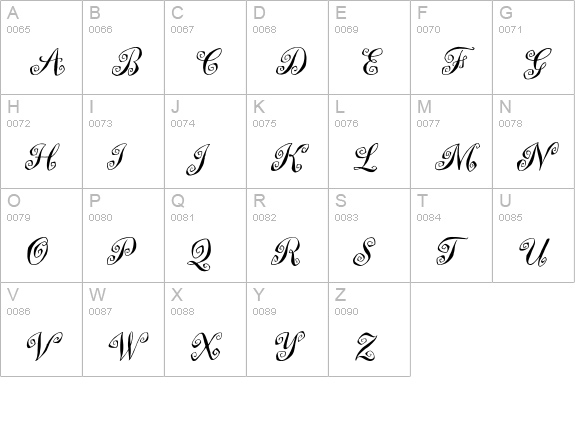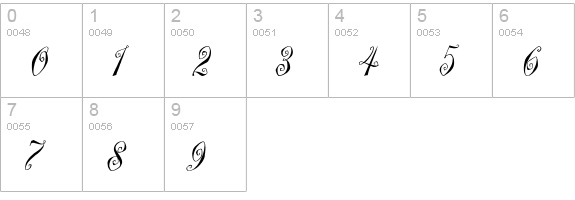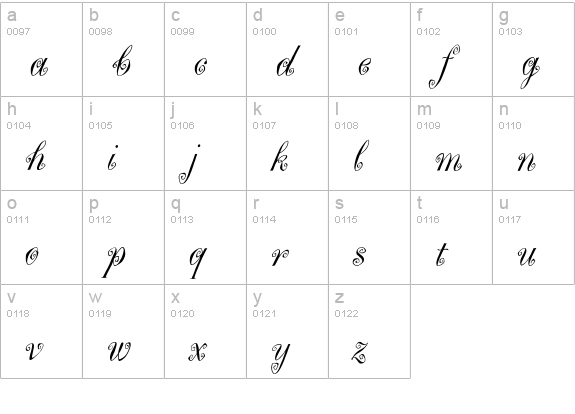
Marguerita Plain Font Details
Introducing Marguerita Plain, a captivating font that effortlessly combines elegance and modernity in one stunning typeface. With its clean lines and refined curves, Marguerita Plain is perfect for adding a touch of sophistication to any design project. This versatile font features a variety of weights and styles, allowing you to create eye-catching headlines, memorable logos, or beautifully crafted invitations. Whether you're working on a professional presentation or designing a personal project, Marguerita Plain will surely elevate your design to the next level. But what sets Marguerita Plain apart is not just its exquisite aesthetic appeal – it is also freely available to download at FontsMarket.com. That's right, you can now access this remarkable font without any cost or restrictions. With Marguerita Plain, you have the freedom to bring your creative visions to life without breaking the bank. Don't miss out on this incredible opportunity to enhance your designs with the elegance and sophistication that Marguerita Plain offers. Download it today from FontsMarket.com and let your creativity soar to new heights.